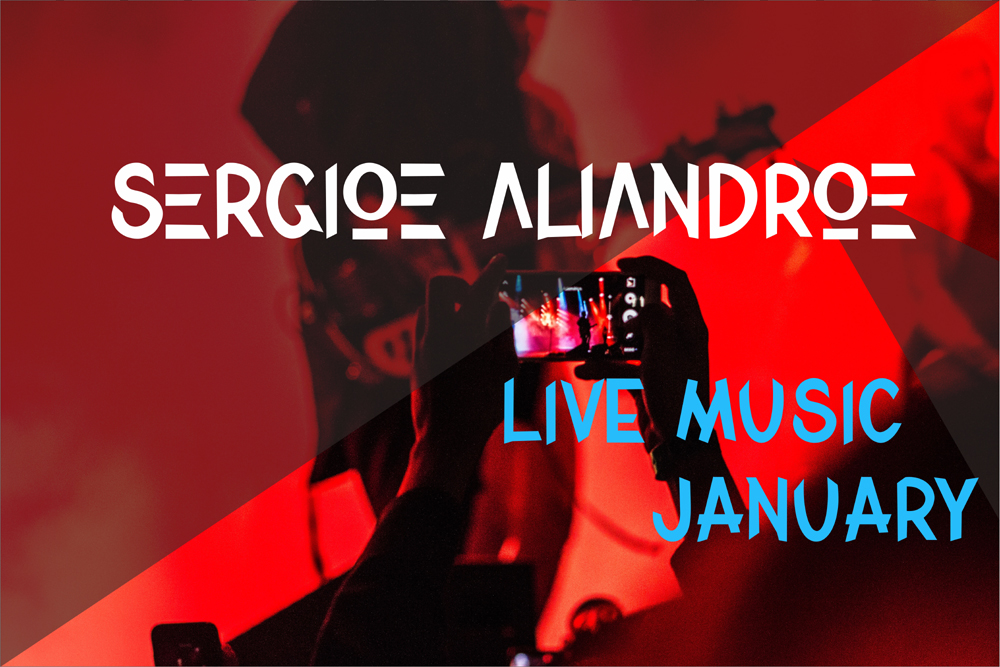
The Quest for the Perfect Font: Discovering Groen
I still remember the frustration of working on a design project, hours spent searching for the ideal font that would bring my vision to life. My client wanted something modern, edgy, and distinctive – a font that would set their brand apart from the rest. I scoured the internet, tried out countless fonts, but nothing seemed quite right. That was until I stumbled upon Groen, a game-changing geometric display font that exceeded my expectations.
A First Impression: What Makes Groen Special
Groen is a modern and geometric display font, carefully crafted with an edgy design that makes it completely distinctive and original. Its unique character set and attention to detail make it perfect for designers, crafters, and creative hobbyists looking to add a touch of sophistication to their projects.
Here’s what I love about Groen:
- ✨ Unique and original design: Groen’s geometric shape and edgy style make it stand out from other fonts.
- ✅ Highly legible: Despite its modern design, Groen remains easy to read, even at smaller sizes.
- 💡 Versatile: This font can be used for a wide range of projects, from branding and advertising to packaging and digital media.
And, like any font, Groen isn’t without its quirks:
- 🤔 Limited suitability for body text: Groen’s geometric design makes it better suited for headlines and titles rather than lengthy paragraphs.
- ⚠️ Some characters may require manual kerning: While Groen’s kerning is generally good, some character combinations may require manual adjustment for optimal results.
The Designer Inspiration Behind Groen
Groen’s design story begins with a passion for modern geometry and clean lines. Its creator aimed to craft a font that would be both visually striking and highly legible, perfect for designers seeking a distinctive edge. By combining geometric shapes with a touch of edginess, Groen was born – a font that’s equal parts modern and timeless.
Q: What type of projects is Groen best suited for?
A: Groen is ideal for projects requiring a modern, edgy, and distinctive font, such as branding, advertising, packaging, and digital media.
Q: Can I use Groen for body text?
A: While Groen is highly legible, its geometric design makes it better suited for headlines and titles rather than lengthy paragraphs.
Q: Does Groen support OpenType features?
A: Yes, Groen supports various OpenType features, including stylistic alternates, glyphs, and ligatures, which can be accessed in compatible design software.